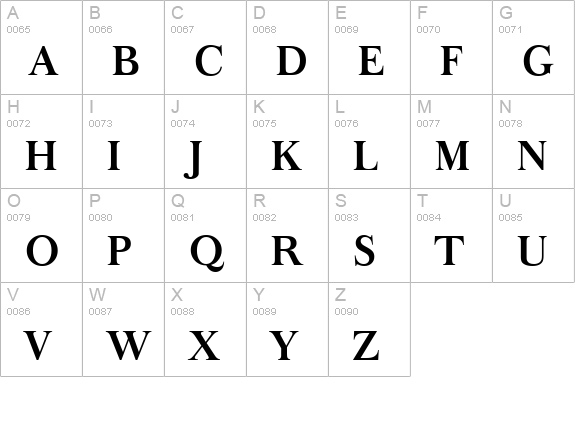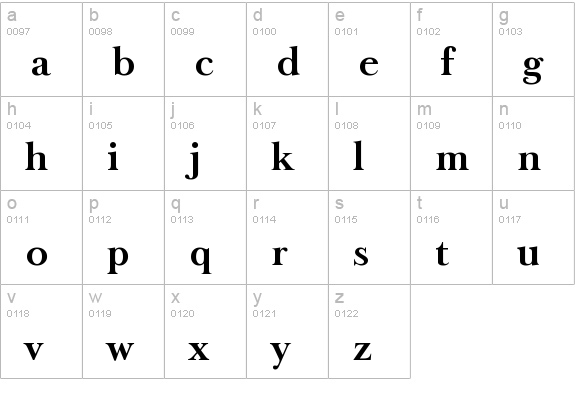
BaskerOldSerial-Bold is a strong, high-contrast variant in the BaskerOldSerial typeface family \xE2\x80\x94 well suited to headlines, attention-grabbing titles, and strong calls-to-action.
BaskerOldSerial-Bold is a bold and eye-catching typeface that exudes a sense of timeless elegance and sophistication. Its strong, clean lines and distinctive serifs make it perfect for creating impactful headlines and titles that demand attention. This versatile font strikes the perfect balance between classic and modern design elements, making it suitable for a wide range of creative projects. Best of all, BaskerOldSerial-Bold is available for free download at FontsMarket.com. Whether you're working on a branding project, editorial design, or any other creative endeavor, this font will add a touch of class and professionalism to your work. Enhance your designs with the bold and expressive BaskerOldSerial-Bold font today, and watch as your projects come to life with style and sophistication.